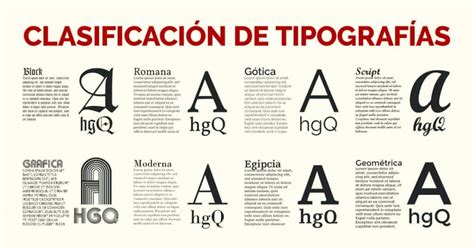
A Typographic Tapestry That Weaves Magic!
Oh, where do I even begin with Que Es Tipografia? It’s not just a book; it’s an experience, a whispered secret passed between kindred spirits, a vibrant splash of ink that brings the world of letters to life in ways I never imagined! If you’ve ever looked at a book, a sign, or even a beautifully designed menu and felt a tiny spark of wonder, then this is the journey for you. Seriously, buckle up, because we’re diving into a world that’s as enchanting as it is informative.
From the very first page, the author masterfully crafts an imaginative setting that feels both familiar and utterly fantastical. It’s a place where typefaces aren't just symbols; they’re characters with personalities, histories, and even aspirations. You’ll find yourself walking alongside elegant serifs, playful sans-serifs, and bold display fonts, each with their own unique charm and story to tell. It’s like stepping into a secret library where the books themselves hum with life, and every letter is a tiny, glowing ember of creativity.
What truly sets Que Es Tipografia apart, however, is its incredible emotional depth. Beneath the surface of design principles and historical context lies a profound exploration of how typography influences our feelings, shapes our understanding, and connects us to one another. You’ll feel the gravitas of a weighty slab serif, the whisper of a delicate script, and the assertive call of a modern grotesque. It’s a testament to the power of subtle details, and the author has a remarkable gift for making you *feel* the impact of every curve and line. You might even find yourself shedding a tear or two as you witness the quiet power of words beautifully presented.
And the universal appeal? Absolutely undeniable! Whether you’re a young adult just discovering the beauty of the world around you, a casual reader seeking a captivating escape, or a student delving into the world of design, Que Es Tipografia speaks to everyone. It breaks down complex ideas into accessible and engaging narratives, making it a joy to read and learn from. There’s no need for prior knowledge – just an open mind and a willingness to be delighted. It’s a book that respects your intelligence while simultaneously igniting your curiosity.
Here are just a few reasons why this book is an absolute must-read:
- A Visual Feast: While the words are enchanting, the book is also a visual delight, showcasing the beauty of typography in every chapter.
- Unlocking Hidden Meanings: You’ll never look at text the same way again. Prepare to see the intentionality and artistry behind every font choice.
- Inspiring Creativity: This book is a potent catalyst for your own creative endeavors, whether you're writing, designing, or simply appreciating the world around you.
- A Story for Everyone: The narratives woven throughout are relatable and heartwarming, touching on themes of identity, connection, and expression.
Que Es Tipografia is more than just a guide to fonts; it’s a love letter to the art of written communication. It’s a reminder that even the smallest details can carry immense weight and beauty. It has a way of making you feel seen, understood, and inspired, all through the careful arrangement of letters. It’s a truly magical journey that will leave you with a newfound appreciation for the silent language of type.
My heartfelt recommendation? Dive in! Que Es Tipografia is a timeless classic that continues to capture hearts worldwide for a reason. It’s an enchanting exploration that will inform your understanding and ignite your imagination. Don't miss out on experiencing this unforgettable adventure. This book is a treasure, a gift that keeps on giving, and an absolute testament to the enduring power and beauty of typography.